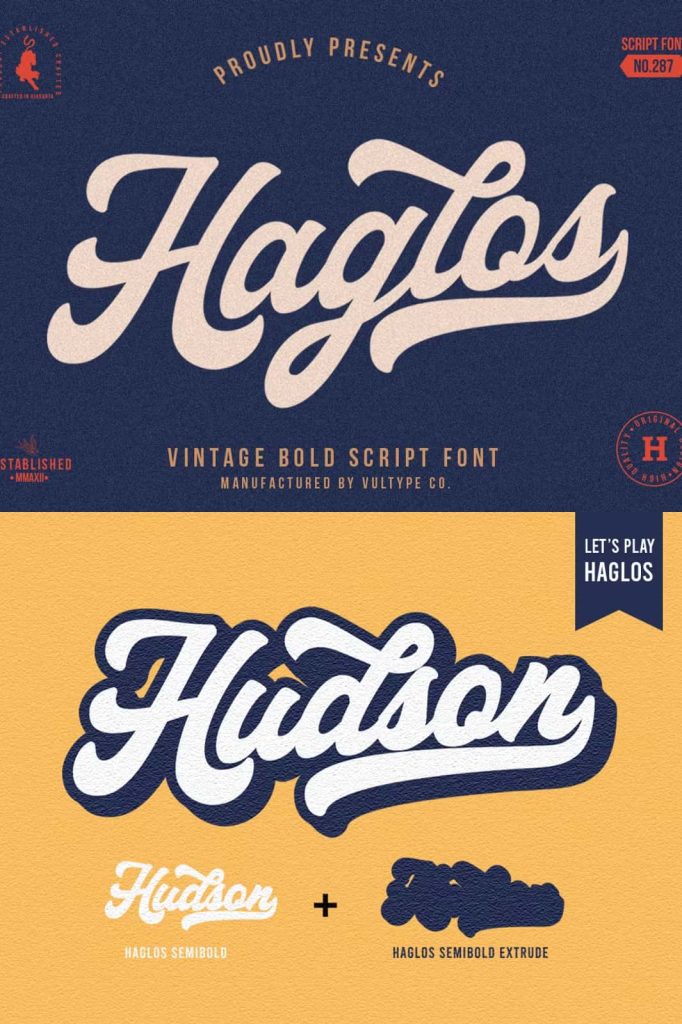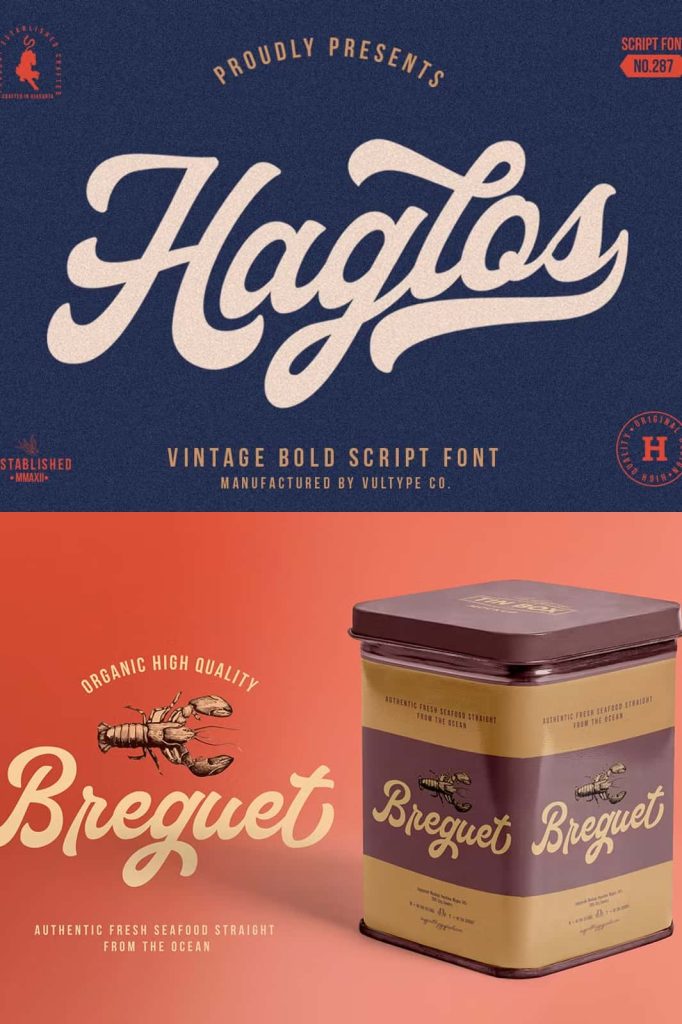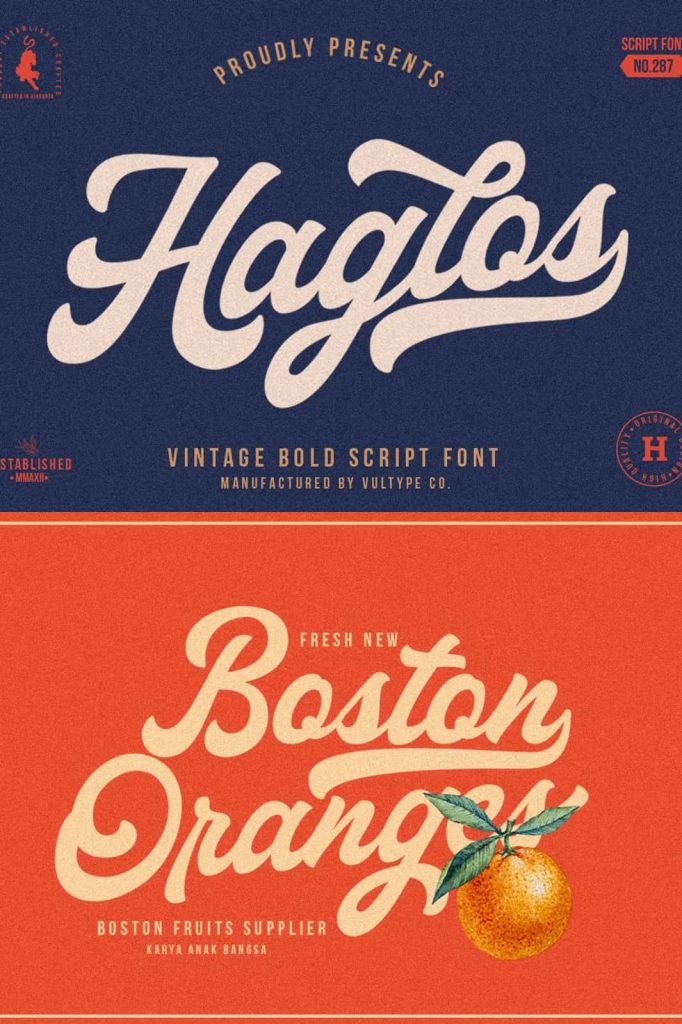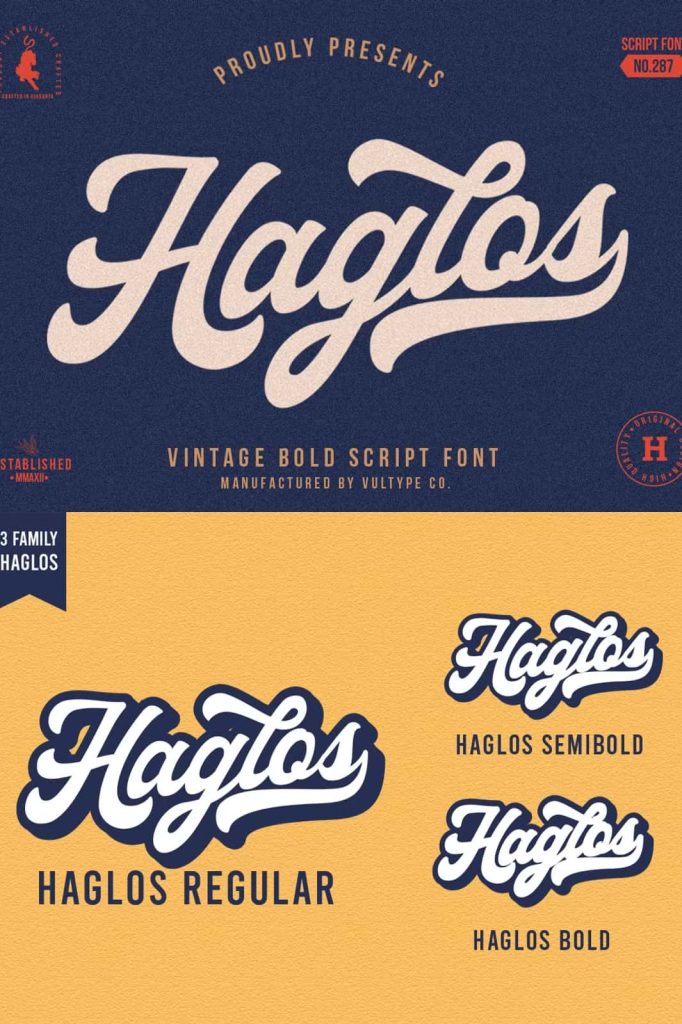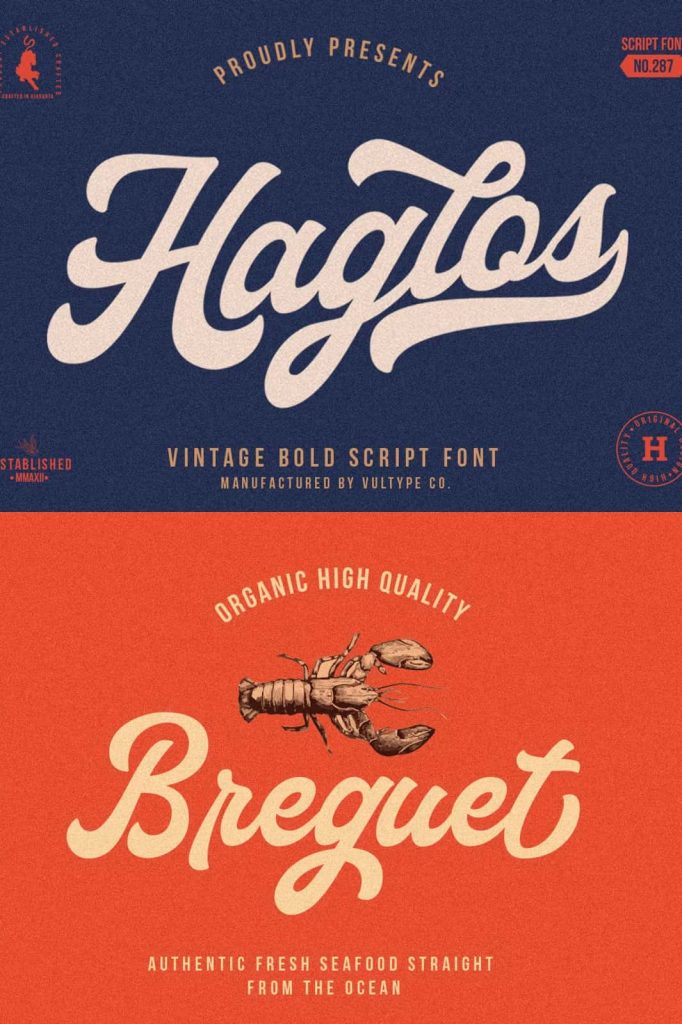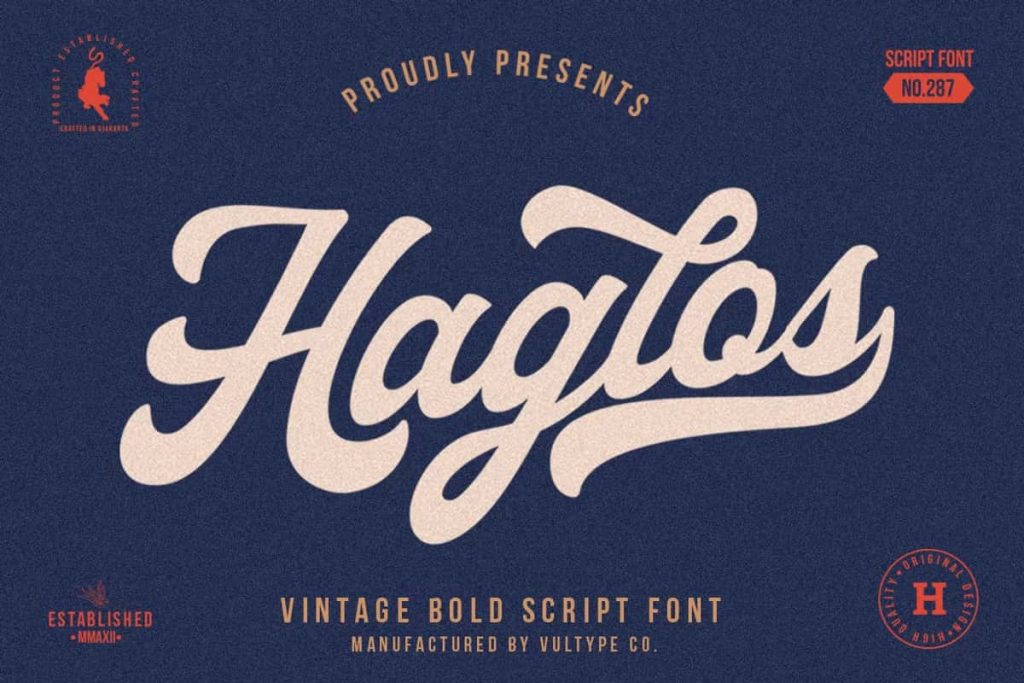
Haglos – Bold ScriptleastedJune 30, 2025Fonts Haglos Script Inspired by Modern Vintage & Retro style and combination with old american traditional style. Download